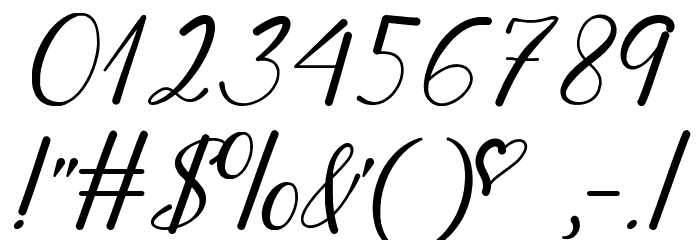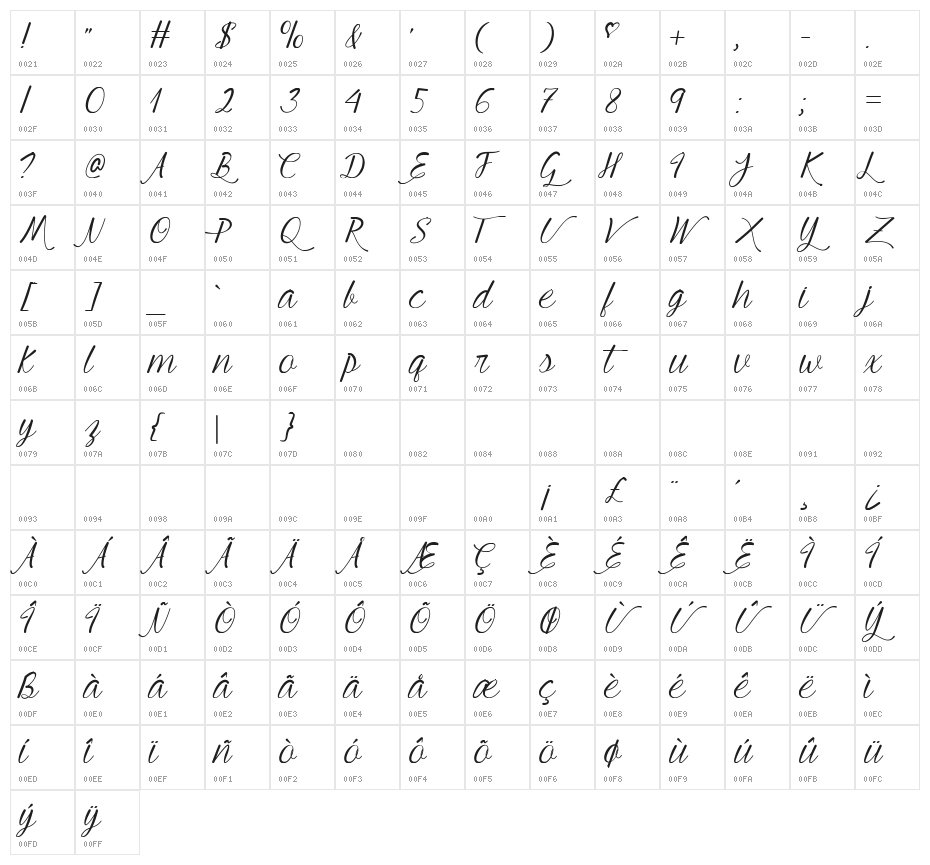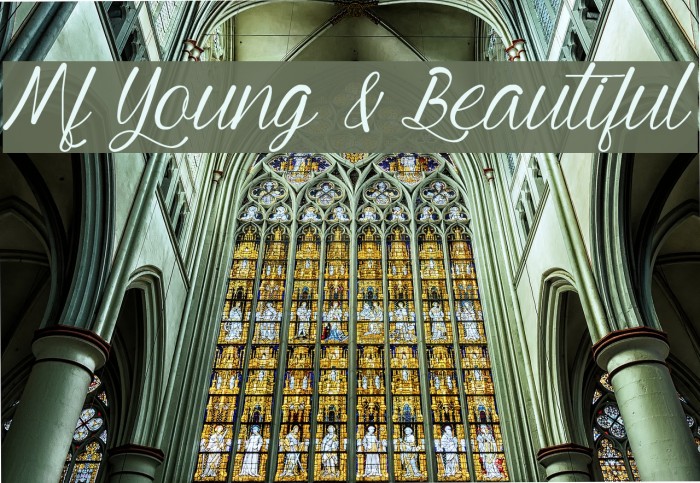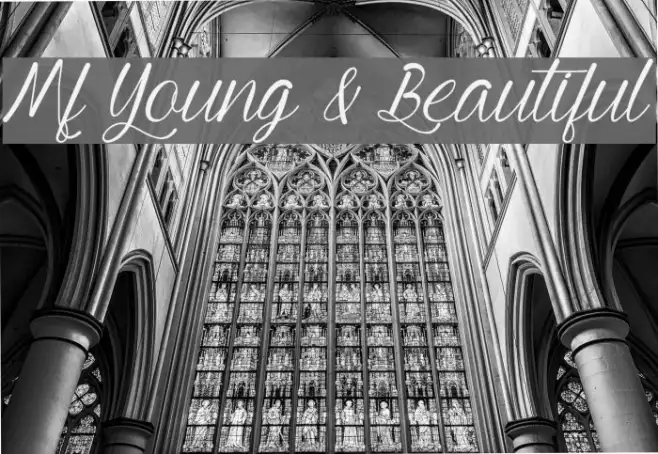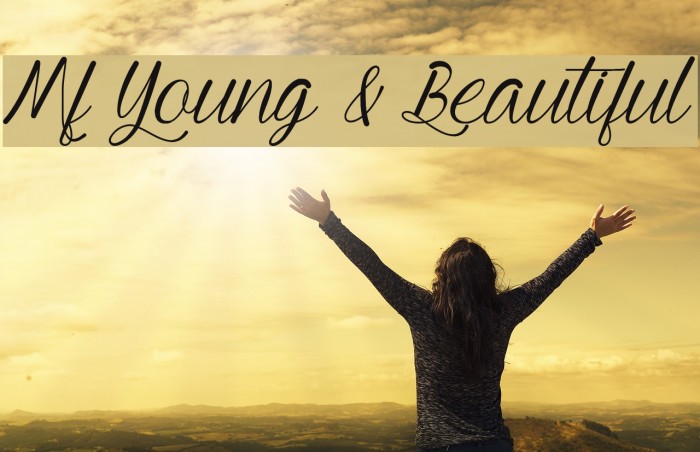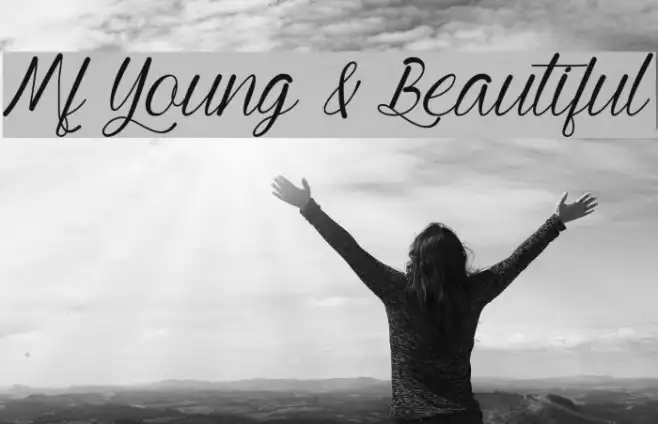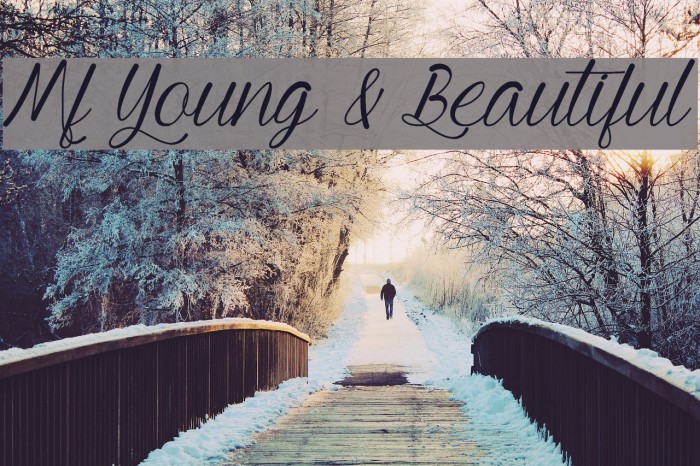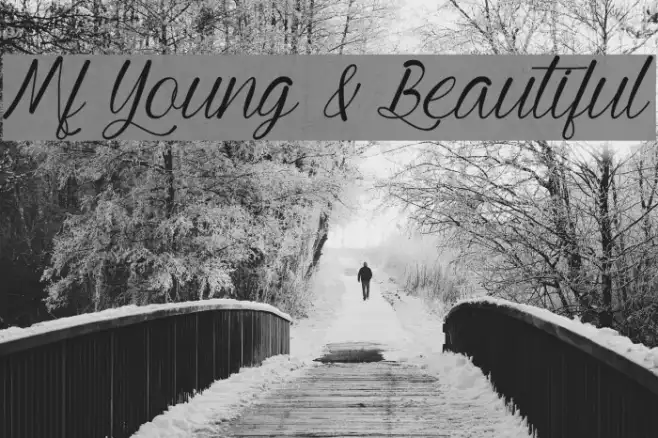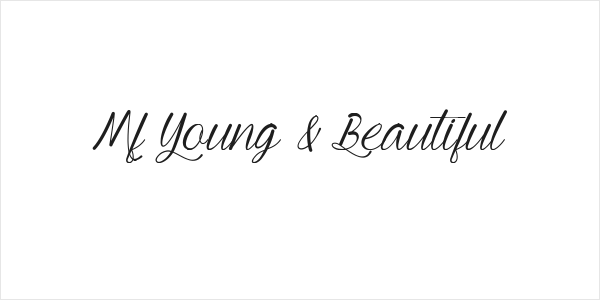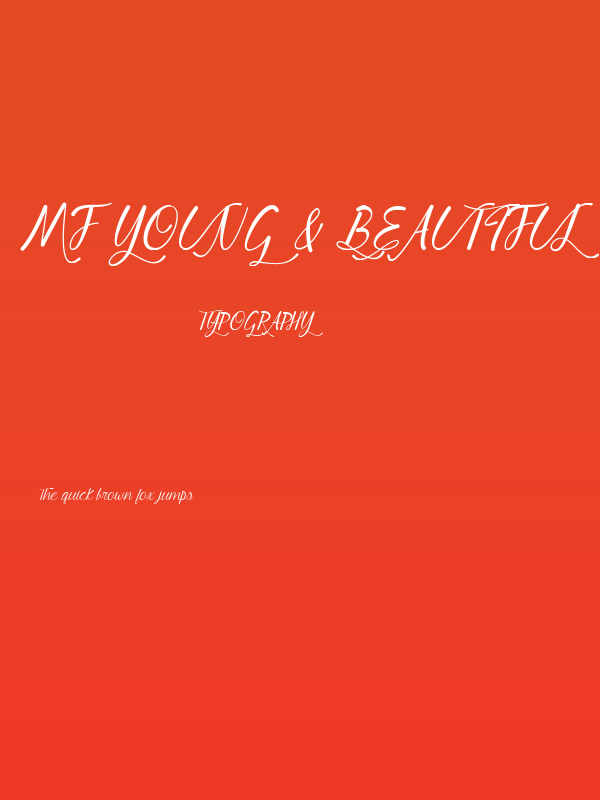
Mf Young & Beautiful Font
Mf Young & Beautiful Description
This font exudes elegance and fluidity, characterized by its cursive script style. The letters are connected with smooth, flowing strokes that give it a handwritten appearance. The uppercase letters are particularly ornate, with elaborate loops and swashes that add a touch of sophistication. The lowercase letters maintain a consistent style, with gentle curves and a slight slant that enhances readability. The numerals are distinct and clear, matching the overall aesthetic with their graceful lines. Special characters are thoughtfully designed, integrating seamlessly with the rest of the font. This font is ideal for projects that require a personal, elegant touch.